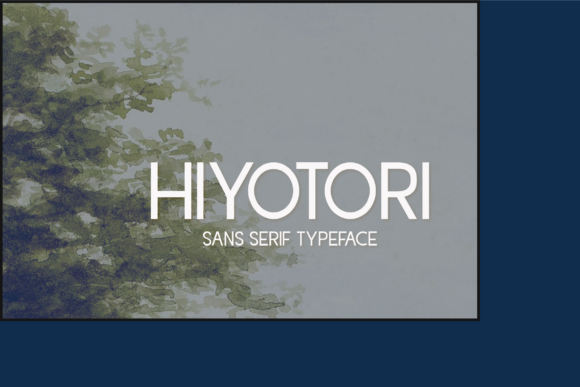
Immerse yourself in the captivating elegance of Hiyotori Font, a masterpiece crafted by Shanaya Creative. This sans serif masterpiece invites you to elevate your digital creations with its timeless sophistication.
Unleash your imagination with Hiyotori's versatile styles, offering endless possibilities for expression. Dive into the allure of its classic form, embrace the playful charm of its italic, or embark on a journey of intrigue with its captivating bold variation.
Hiyotori's refined lines and meticulously crafted curves evoke a sense of harmony and sophistication, empowering you to craft designs that resonate with your audience. Whether you seek to evoke a sense of timeless elegance or inject a touch of playful charm, Hiyotori's versatile persona adapts effortlessly to your vision.
Indulge in the boundless possibilities that await within Hiyotori's refined embrace. Let your creativity soar, knowing that every stroke of this font carries the essence of beauty and inspiration. Experience the transformative power of Hiyotori, and allow your designs to bloom with an allure that captivates the senses.